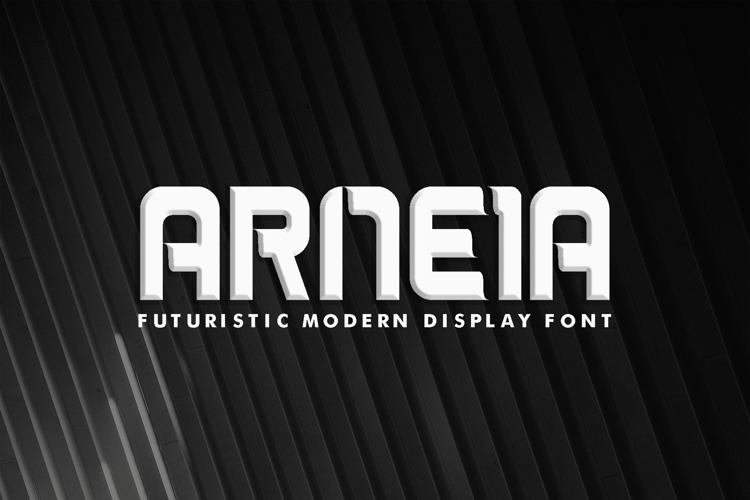
Arneia Font
About Arneia Font
Arneia is a modern, elegant and futuristic display font. It is perfect for logos, bussiness card, posters, headlines, gaming logo, branding, techno branding, digital assets, game design, UI, UX, synthwave, vaporwave, futuristic poster, contemporary typographic design, techwear apparel, vehicles design, prototype concept, anything you need a boost to many more projects. Add it confidently to your projects, and you will love the results.